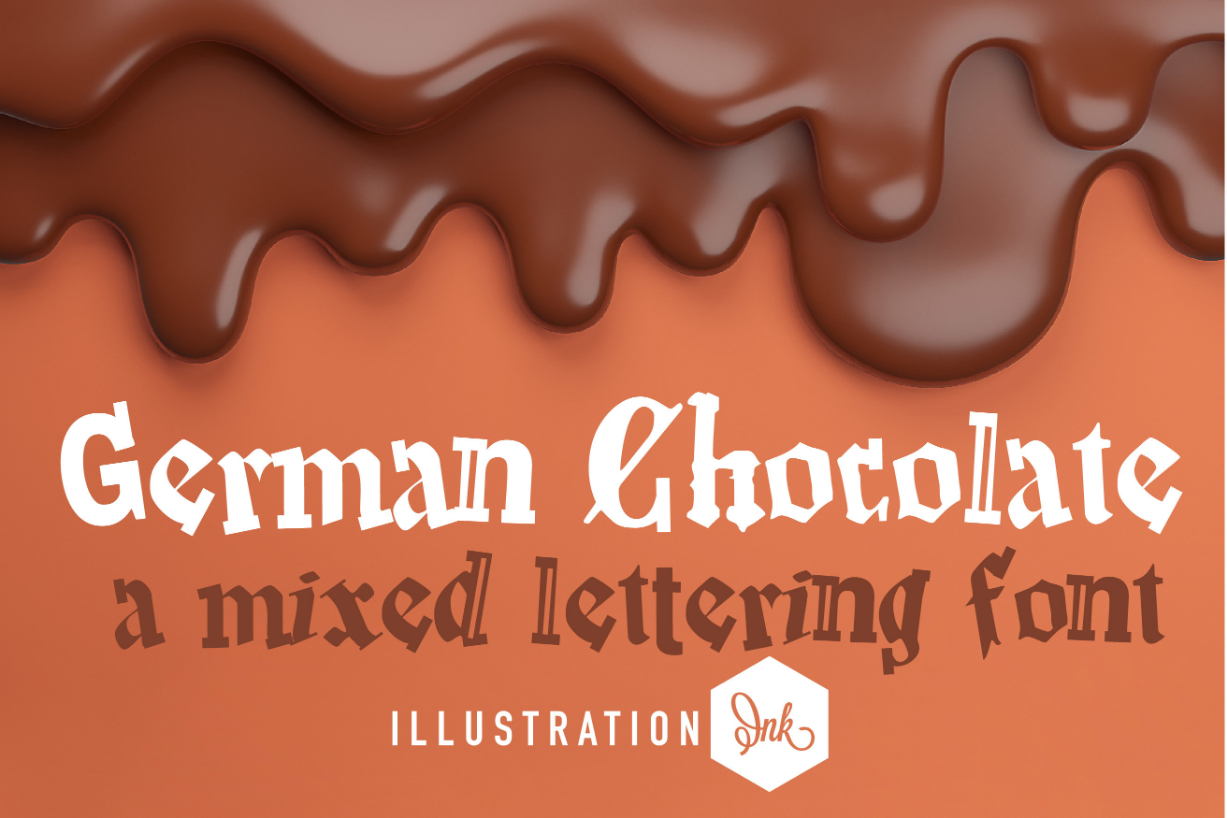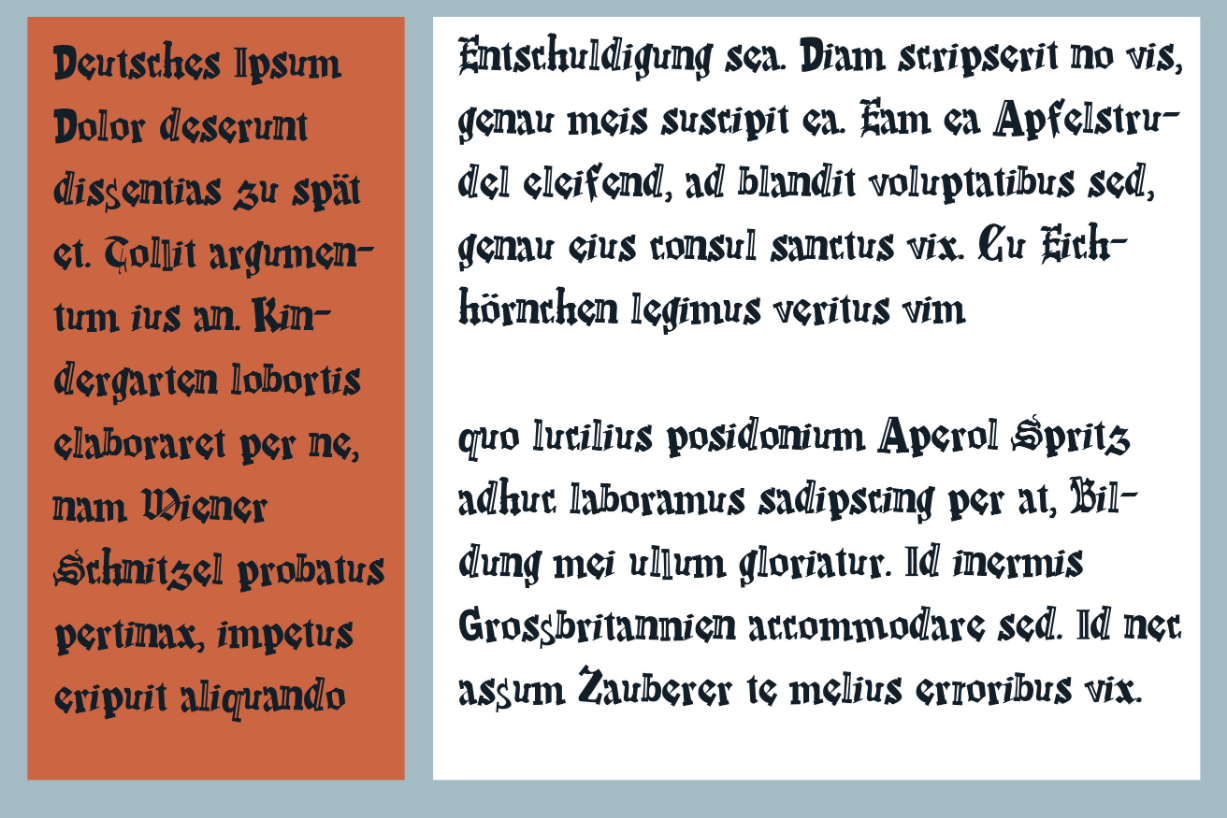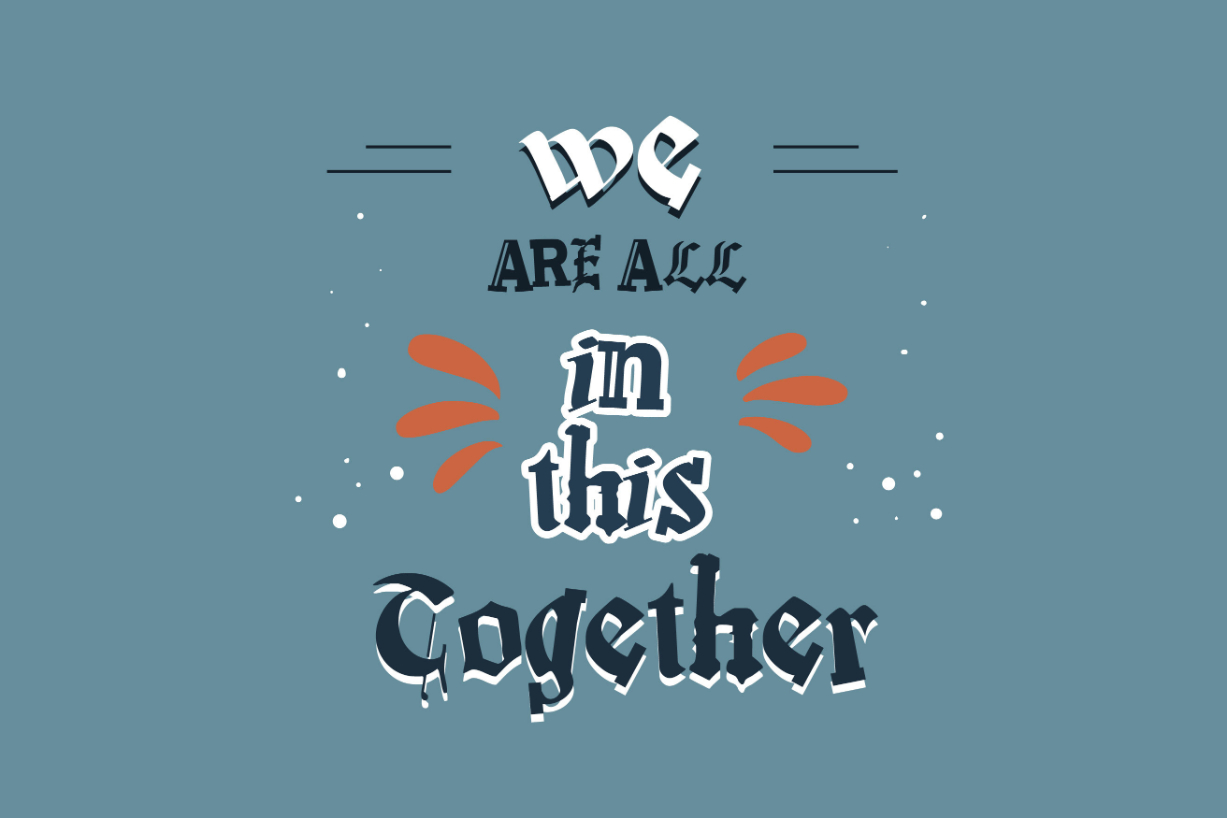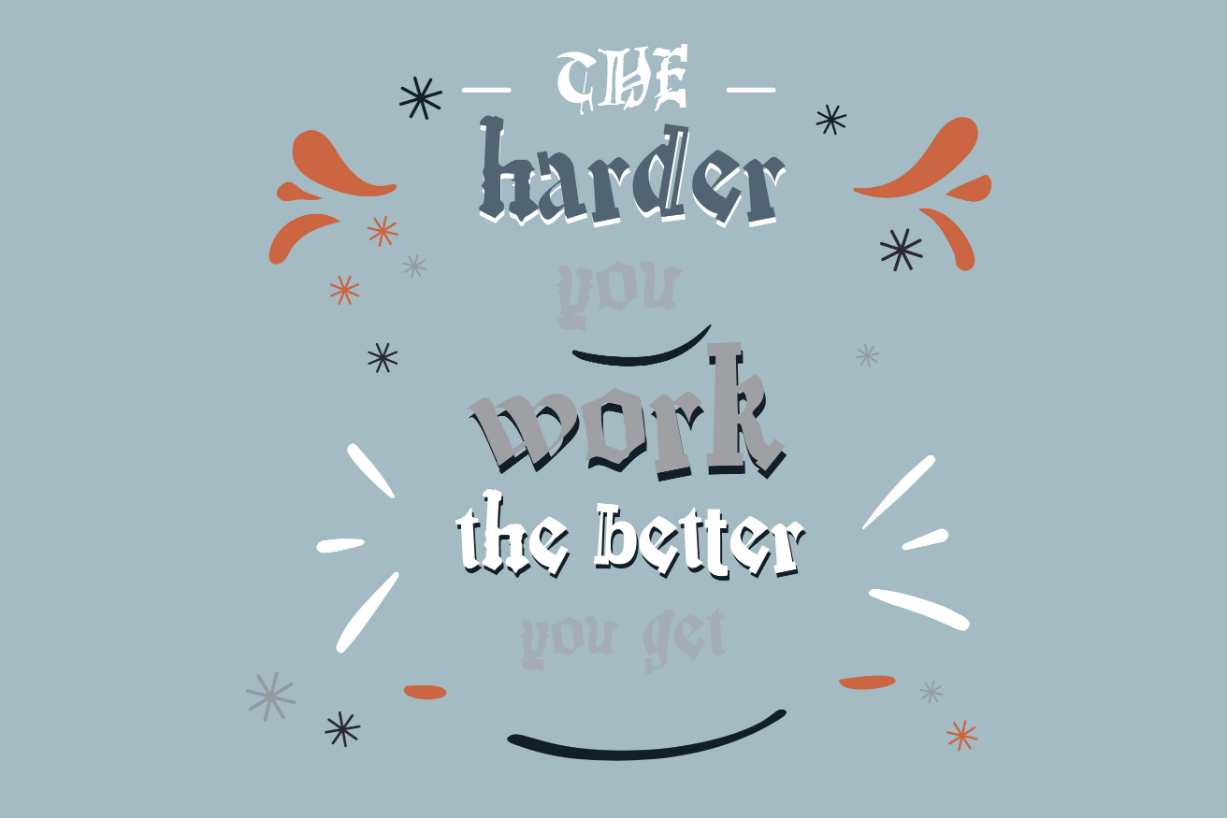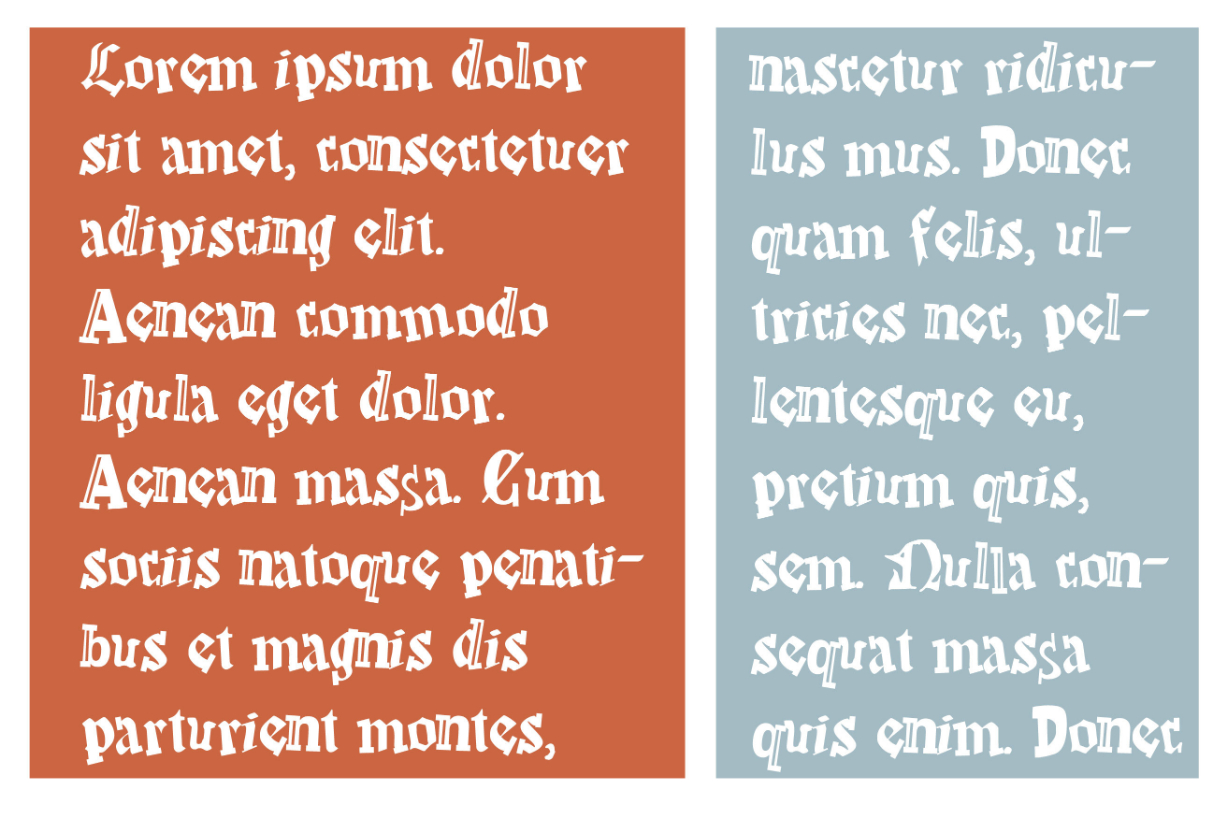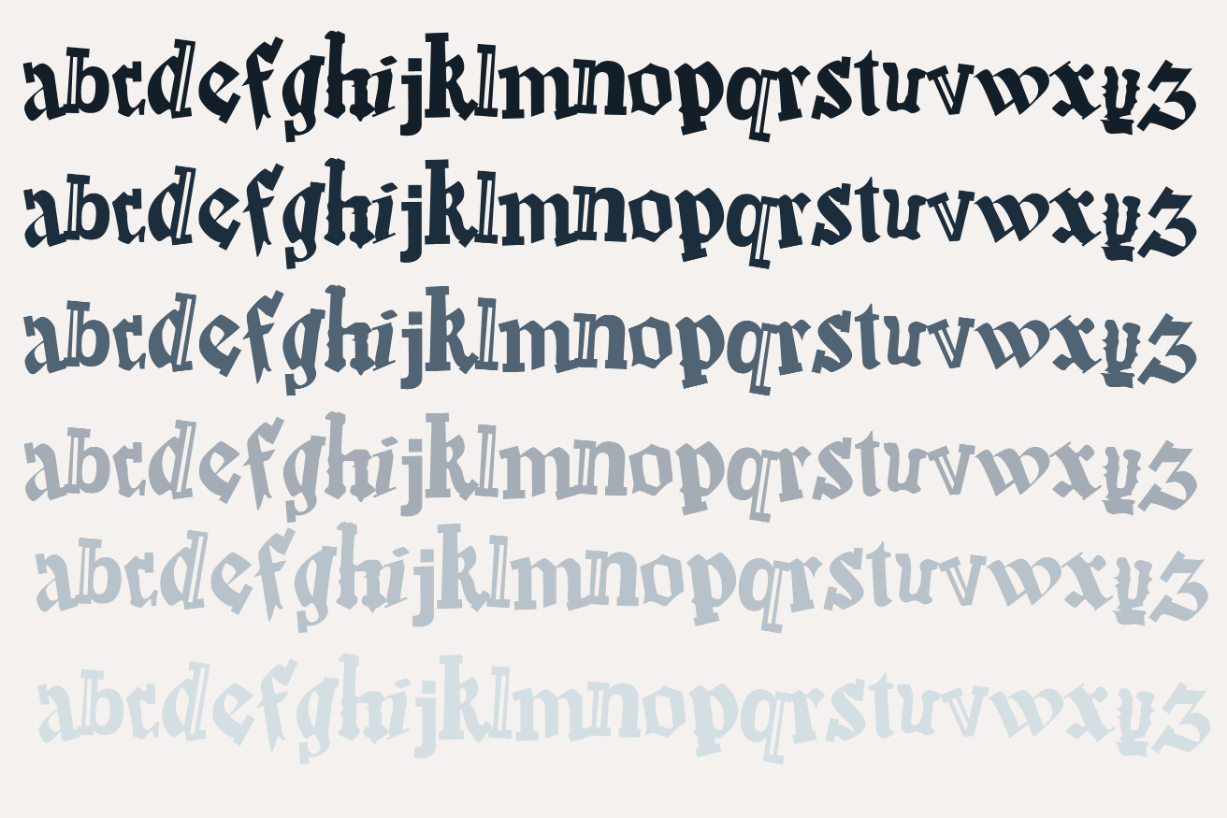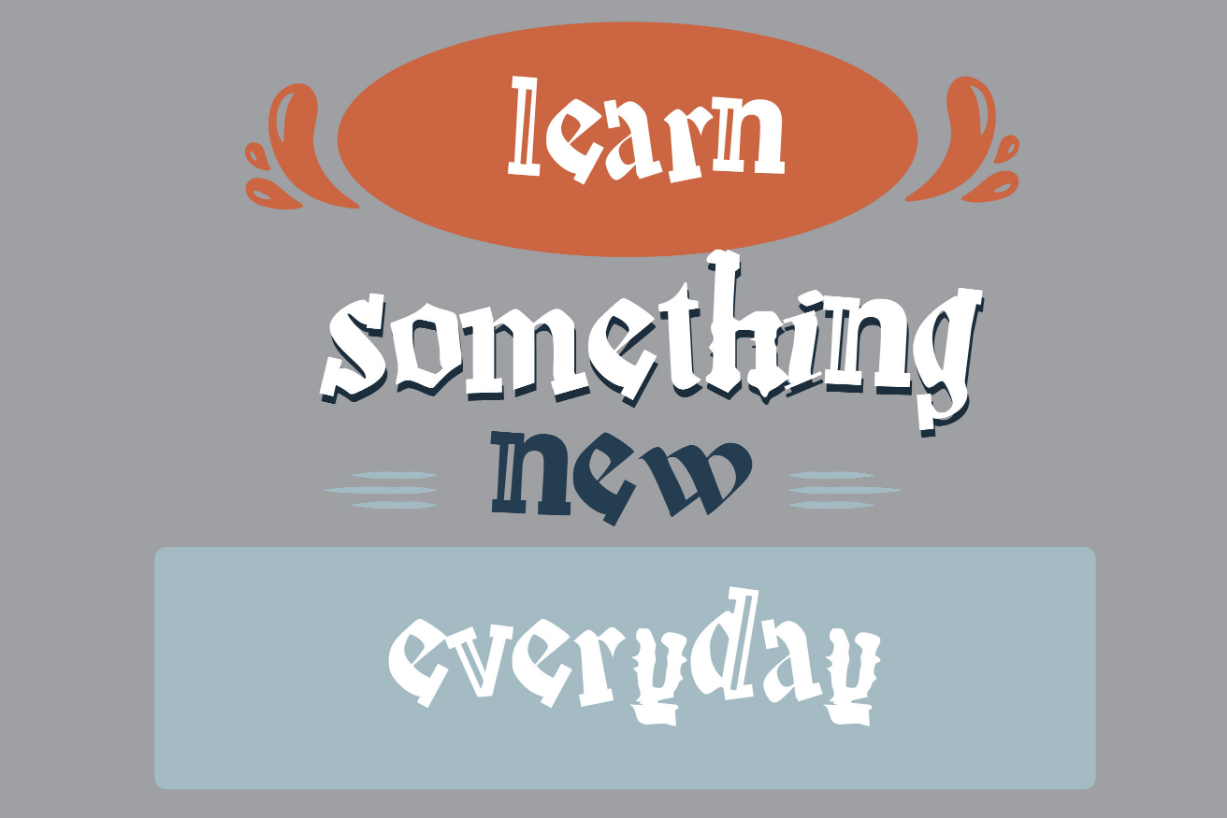
German Chocolate Font
About German Chocolate Font
Indulge your senses with this tasteful and attractive blackletter font inspired by chocolate. The letters are rich and decadent, with intricate details that mimic the texture of melted chocolate. This font is perfect for any project requiring a touch of luxury and elegance, whether for packaging, branding, or advertising.